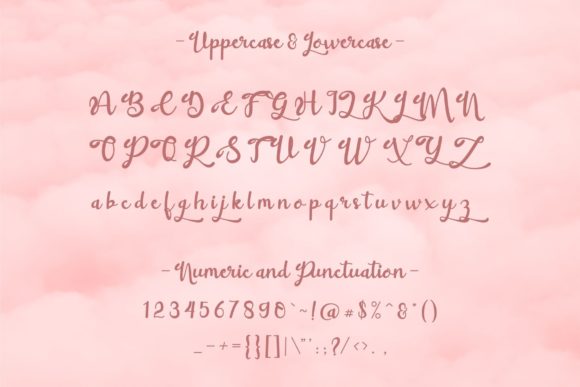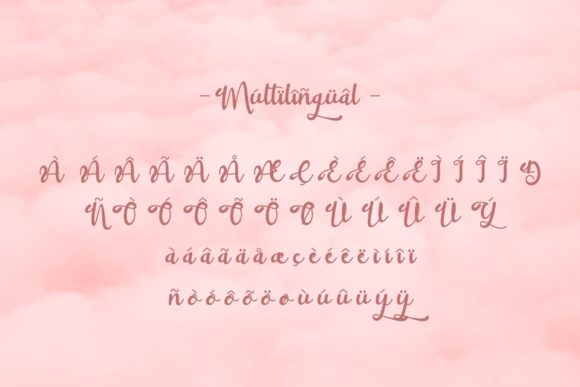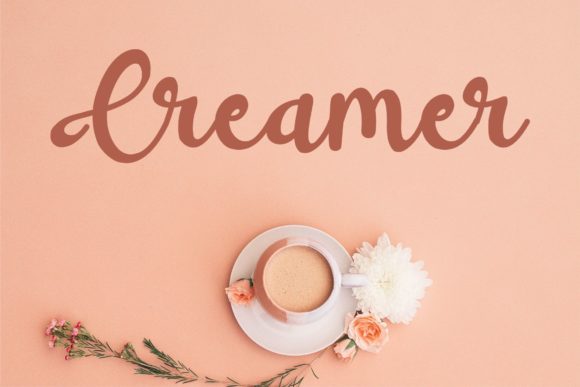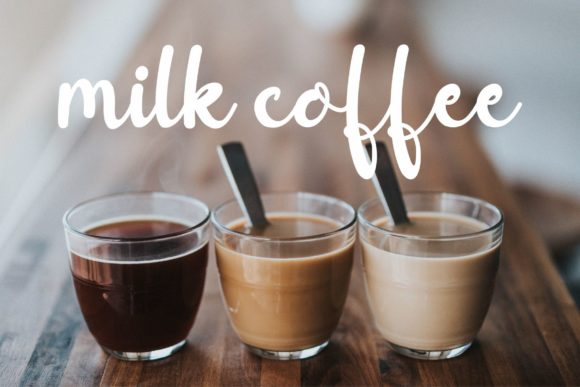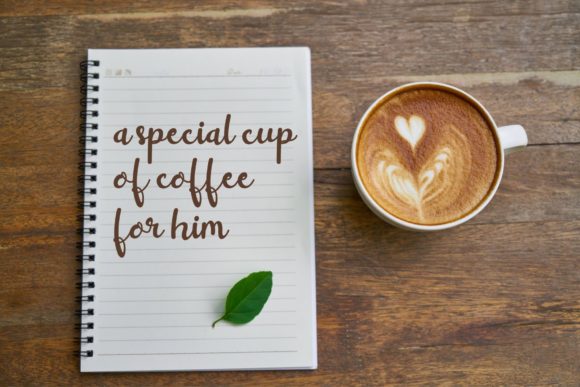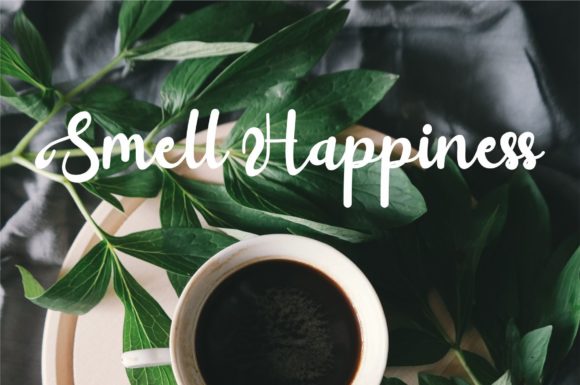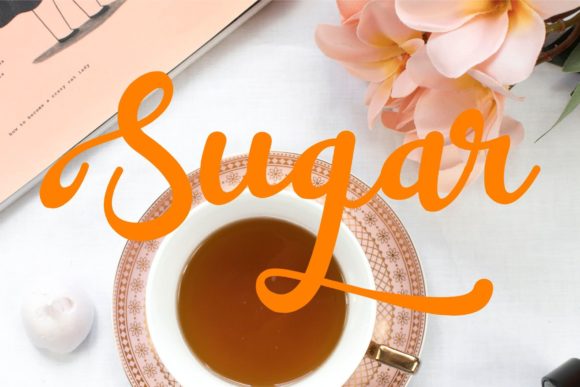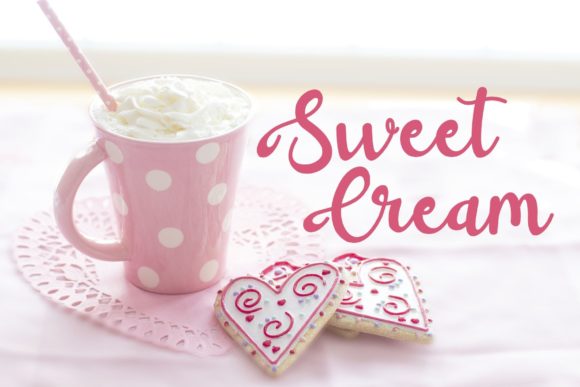
Manilo Font
About Manilo Font
Manilo is a beautiful modern script font. It will look beautiful on wedding invitations, thank you cards, quotes, greeting cards,
logos, business cards and more.